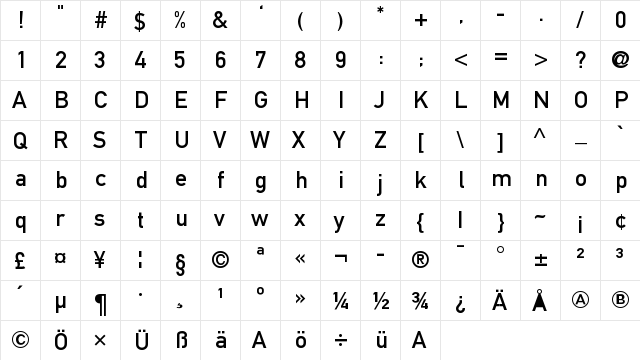
DIN 1451 Mittelschrift Alt Regular
Design Context for DIN 1451 Mittelschrift Alt Typeface
DIN 1451 Mittelschrift Alt takes a measured approach to typography — its balanced proportions and neutral character make it a reliable workhorse for both digital and print work.